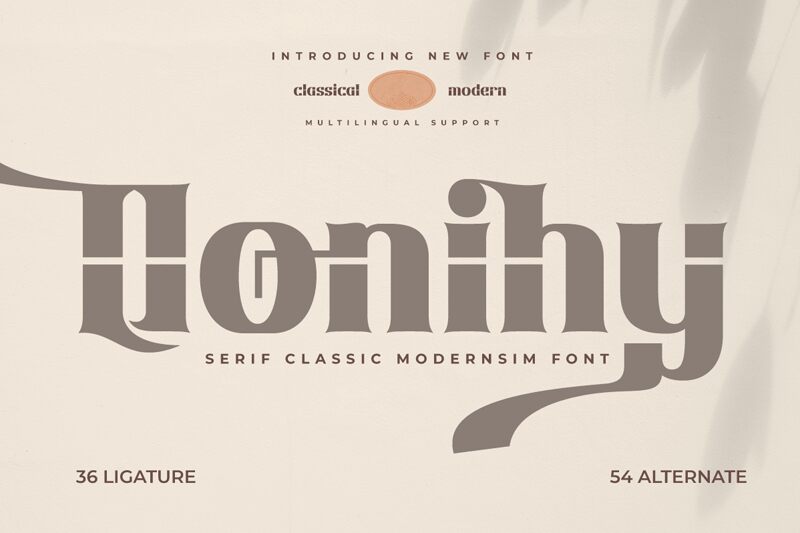
Qonihy font family by twinletter is an elegant retro font style designed to give your projects a classic and sophisticated look. This free font family presents a structured, contemporary feel with a distinctive and artistic design that is perfect for adding a touch of luxury to your work. With a unique and bold appearance, Qonihy strikes the perfect balance between modern and timeless elegance.